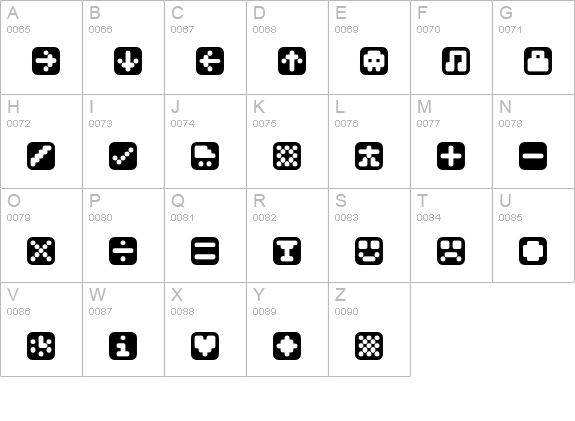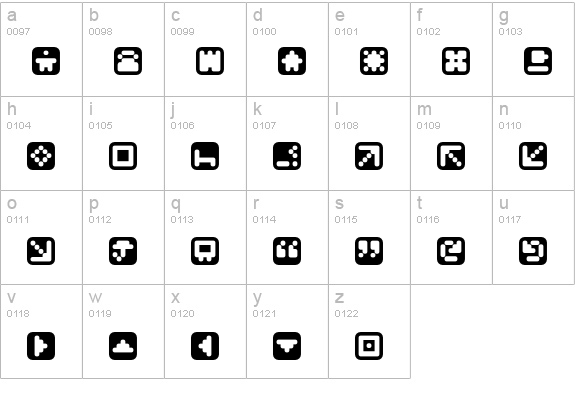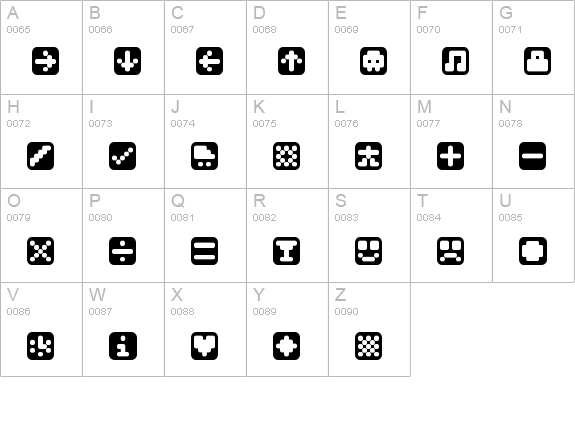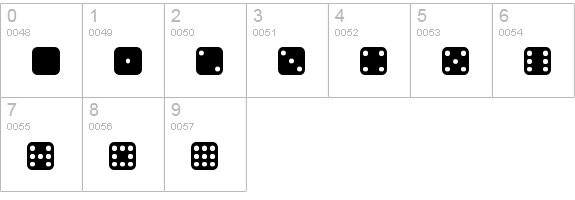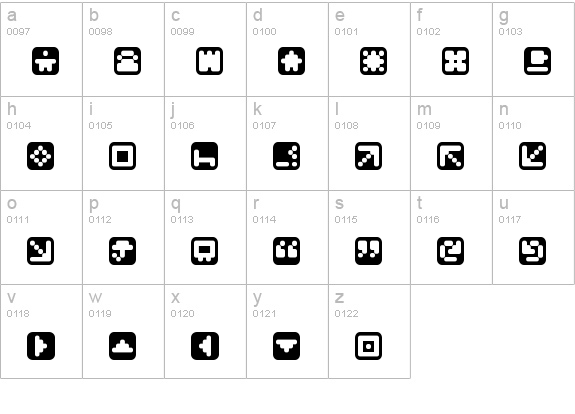
Mastertext-SymbolsOne Font Details
Introducing Mastertext-SymbolsOne font, a versatile and captivating typeface that adds a touch of elegance and creativity to any design project. With its intricate and unique symbols, this font is perfect for adding a special touch to logos, headlines, invitations, and more. What sets Mastertext-SymbolsOne font apart is not only its stunning design but also its accessibility. This font is freely available to download at FontsMarket.com, making it a valuable asset for designers, students, and enthusiasts alike. Whether you're designing a website, creating a personalized greeting card, or working on a branding project, Mastertext-SymbolsOne font offers a wide range of symbols to choose from. From arrows and stars to decorative elements and geometric shapes, this font is a treasure trove of visual possibilities. The attention to detail in Mastertext-SymbolsOne font is truly remarkable. Each symbol is meticulously crafted to ensure crisp and clean lines, ensuring that your designs stand out with precision and clarity. The font's versatility allows for seamless integration into various design styles, from minimalistic and modern to bold and expressive. Not only does Mastertext-SymbolsOne font add a touch of sophistication to your designs, but it also provides a sense of accessibility. By being freely available to download at FontsMarket.com, this font eliminates any financial barriers and empowers designers to unleash their creativity without restrictions. So why wait? Enhance your design projects with Mastertext-SymbolsOne font, and let its captivating symbols elevate your work to new heights. Download this remarkable font today from FontsMarket.com and embark on a journey of limitless creativity.